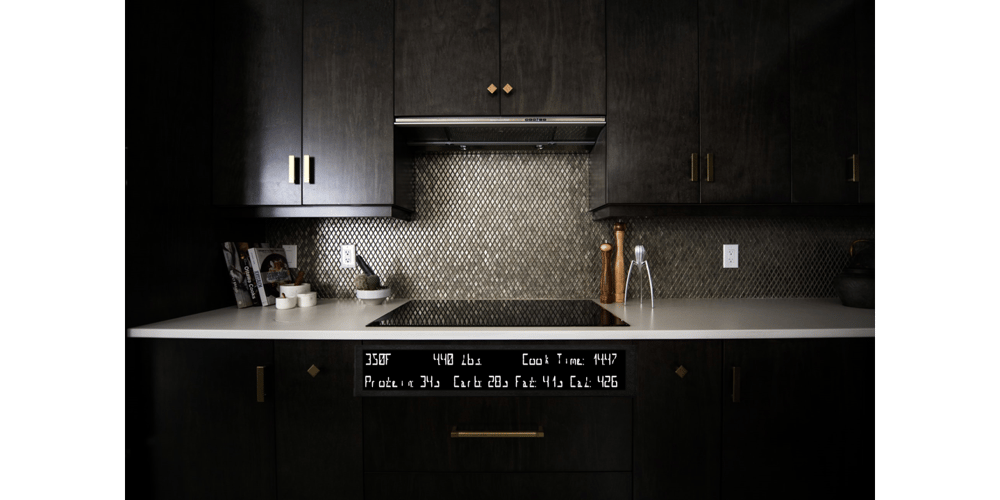
Al Seg23
Al Seg23 font
Al Seg23 Font Family was designed by Nihar Mazumdar and published by Nihar Mazumdar. Al Seg23 contains 2 styles and family package options. Al Seg23 is an alphanumeric display that has 3 diagonals in each corner as opposed to just 1 in a traditional 14 or 16-segment display. This alphanumeric font has 23 segments, with 16 inside segments, 6 outside segments and a middle dot.